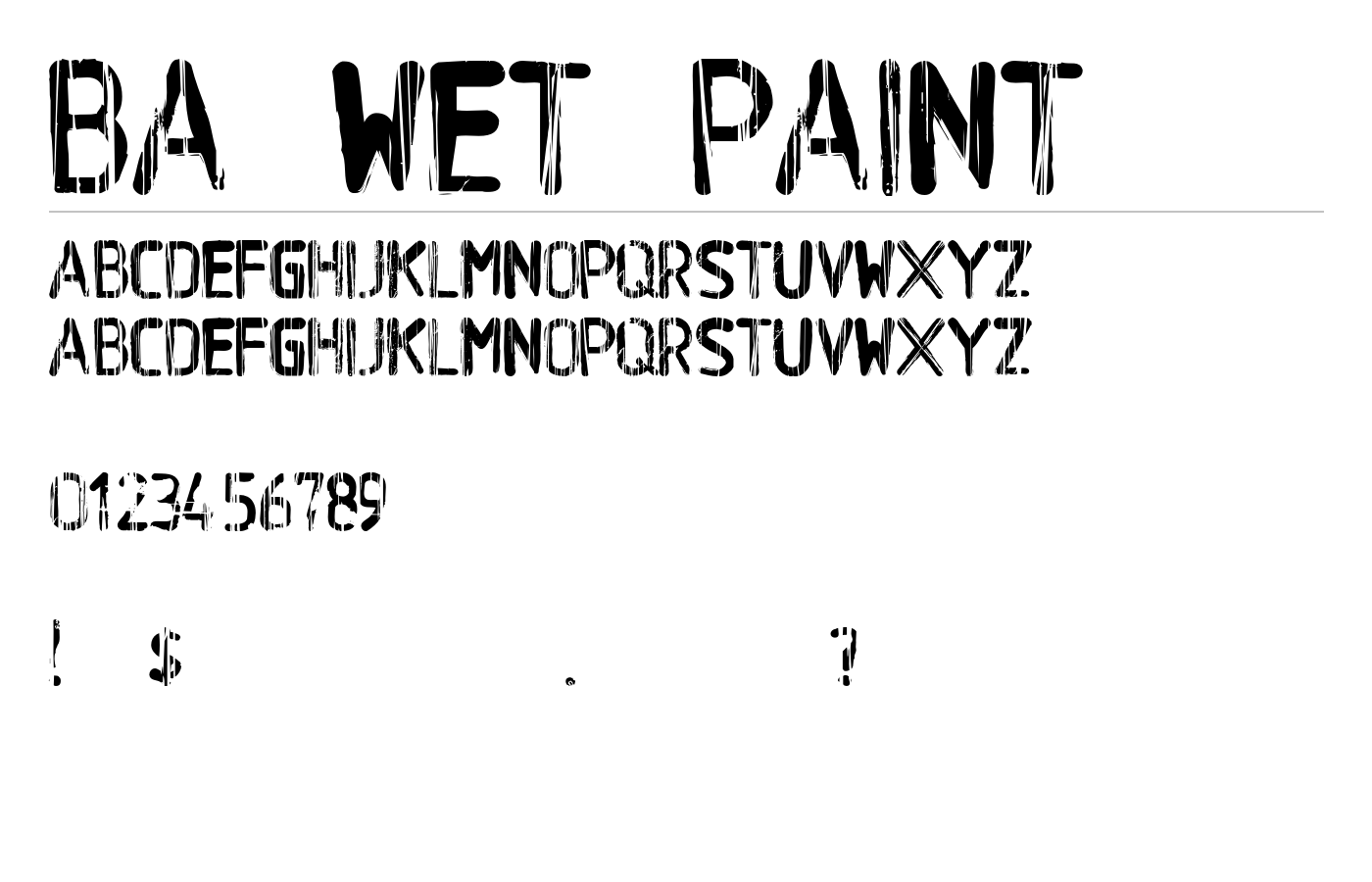
BA Wet Paint is a bold, condensed sans serif font with a distressed, grungy texture that mimics the look of freshly applied, uneven paint. Its uppercase letterforms feature rough edges and irregular stroke breaks, creating an edgy, urban feel that works well for street art-inspired designs, posters, or branding that seeks a raw, energetic vibe. This font is ideal for expressive headlines or creative projects that want to convey boldness and a handcrafted, rebellious spirit.